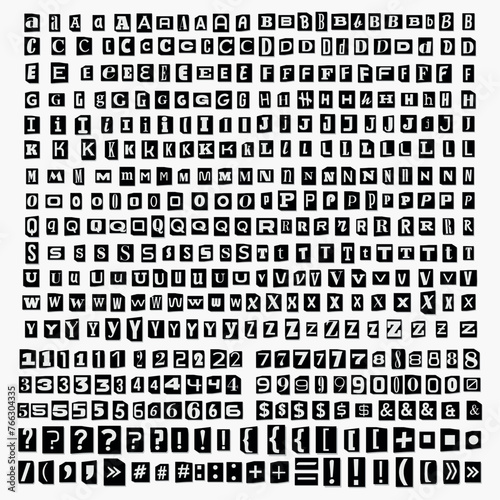
Black and white Cut out ransom letters collage vector alphabet blackmail Note Font. Paper Blackmail Kidnapper Anonymous Letters, Numbers and punctuation marks Criminal ransom letters. Compose your own